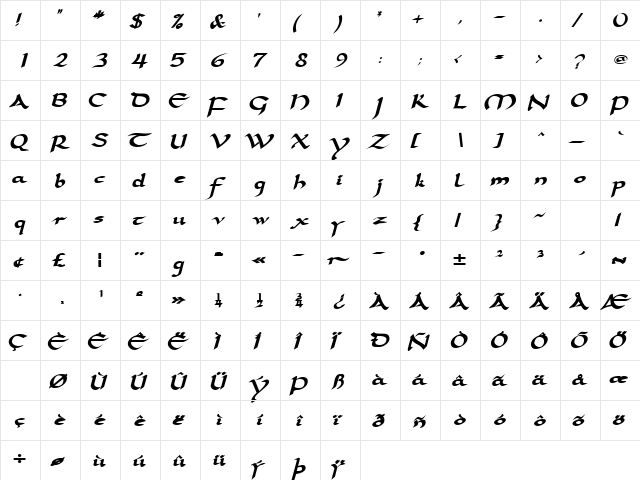
SamovarSSK Bold Italic
Design Context for SamovarSSK Typeface
SamovarSSK is a composed and adaptable typeface that performs quietly and consistently across a wide range of design contexts. The slanted form adds forward momentum and visual energy. Its bold stroke weight gives it real presence on the page.